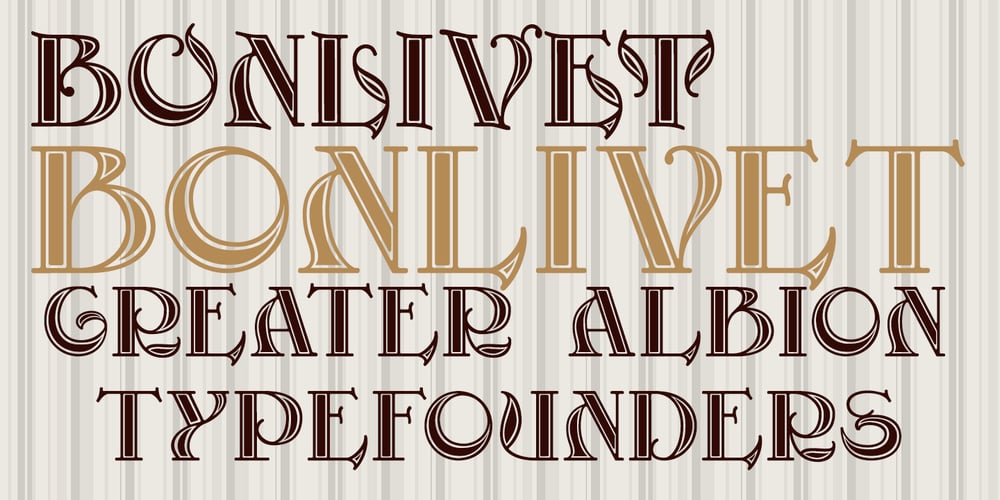
Bonlivet Font Family was designed by Paul James Lloyd and published by Greater Albion Typefounders. Bonlivet contains 1 styles and family package options. Bonlivet is an all capitals display face, which starts from Roman letter forms and pushes them into wild decorative extravagance. There is a somewhat early 20th century feel to this, but really it’s just a bit of good fun, with a hint of elegance thrown in.